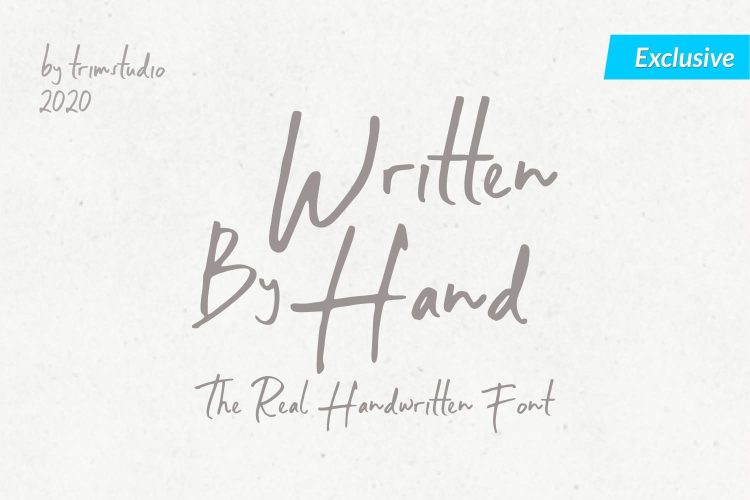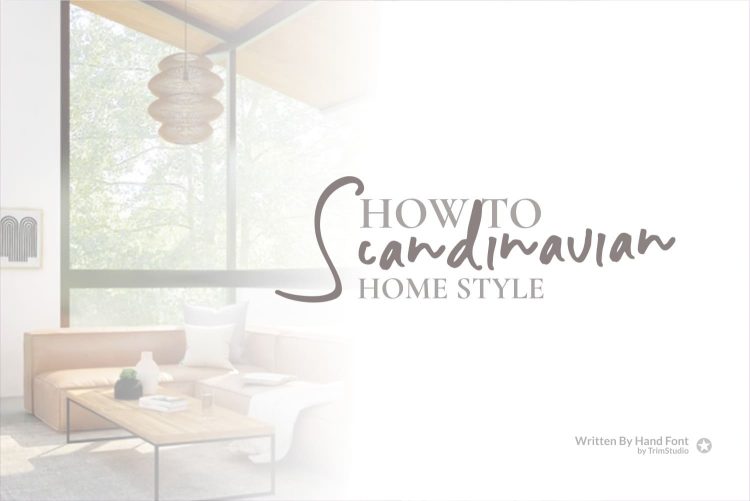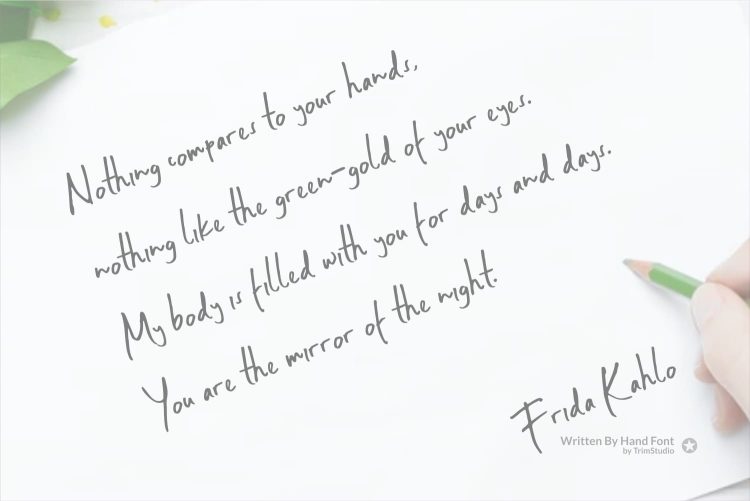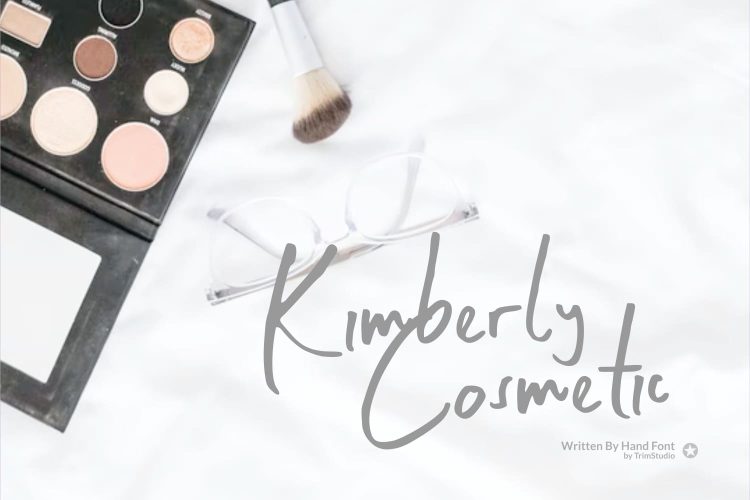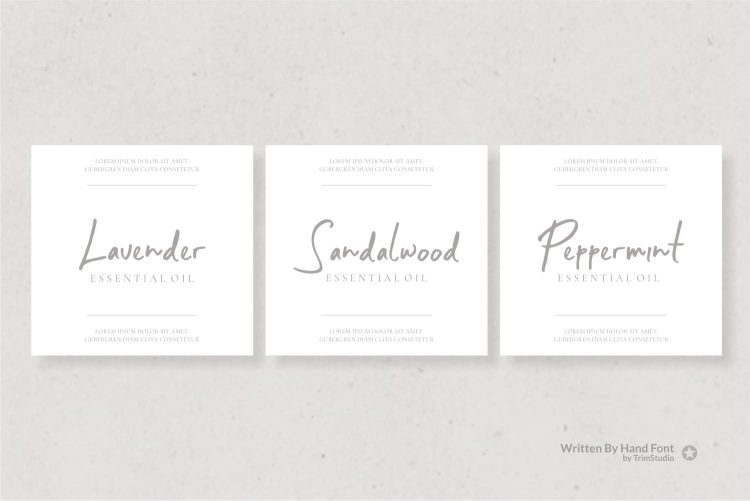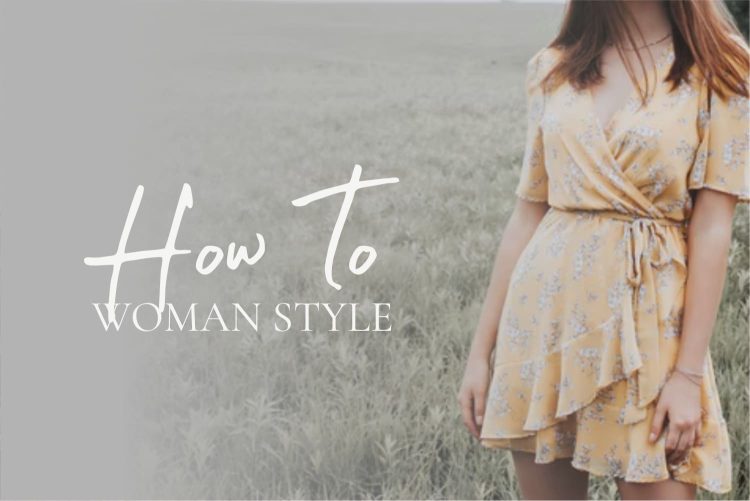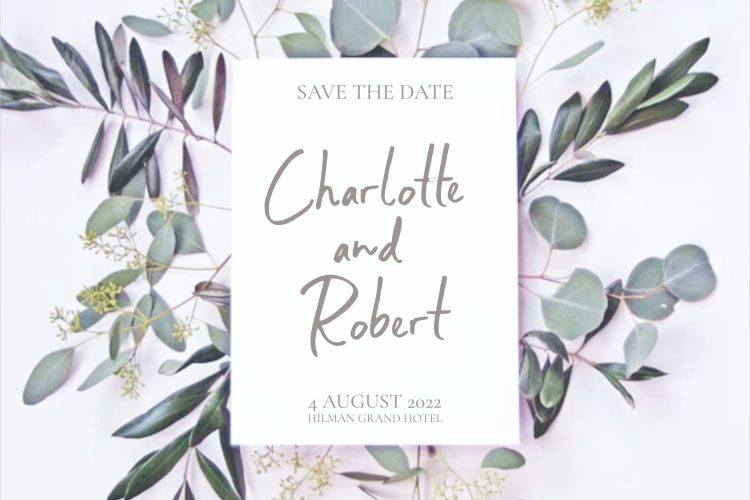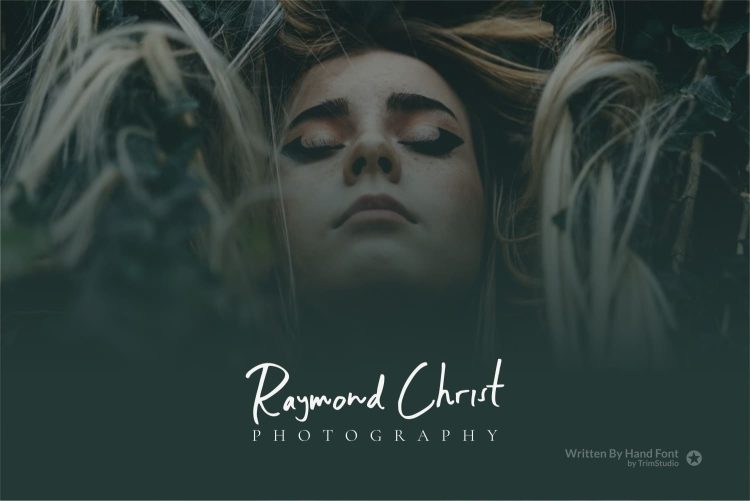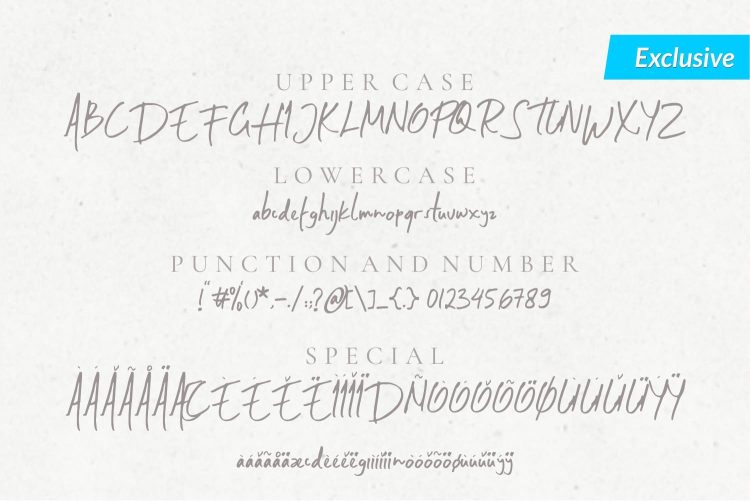
Written By Hand is a handmade font inspired by authentic handwriting. Its messy, realistic style makes it ideal for various branding and personal identity projects.
Perfectly suited for crafters and graphic artists, this font enhances designs such as invitations, advertisements, posters, logos, birthday cards, product labels, and much more. Despite being lightweight, Written By Hand includes all standard glyphs and punctuation marks.